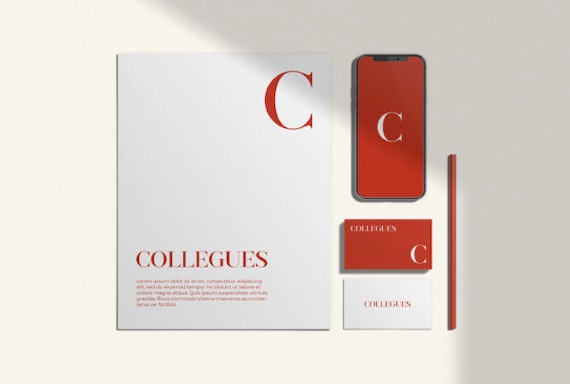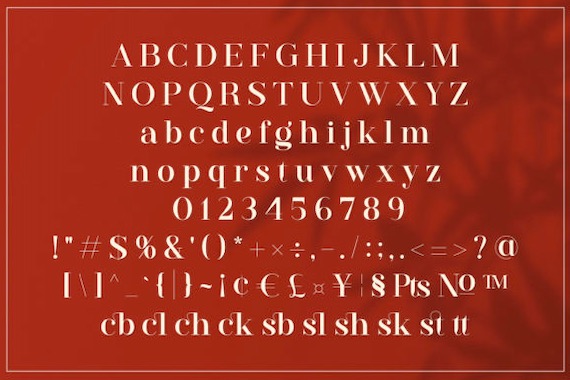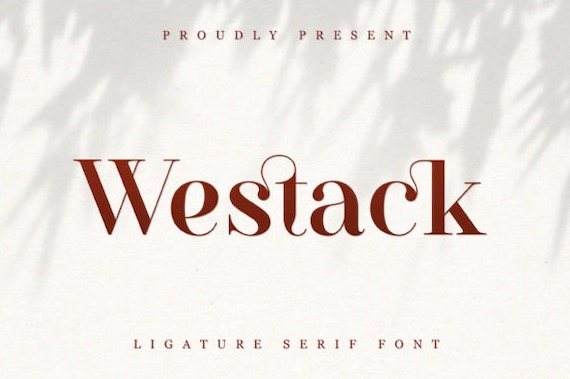
Westack is an elegant & luxury serif font that was created and shared by Almarkhatype. Moreover, You let in love with its incredibly authentic style and use this basic font to make spectacular designs.